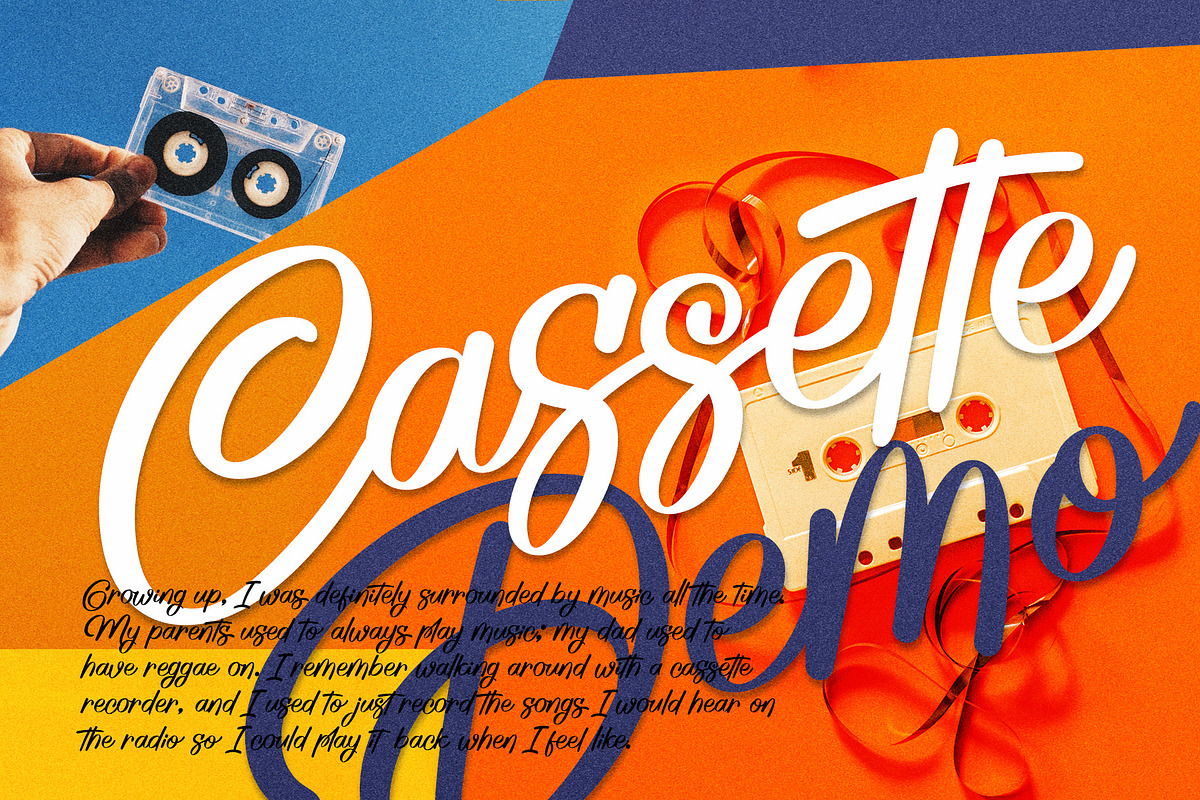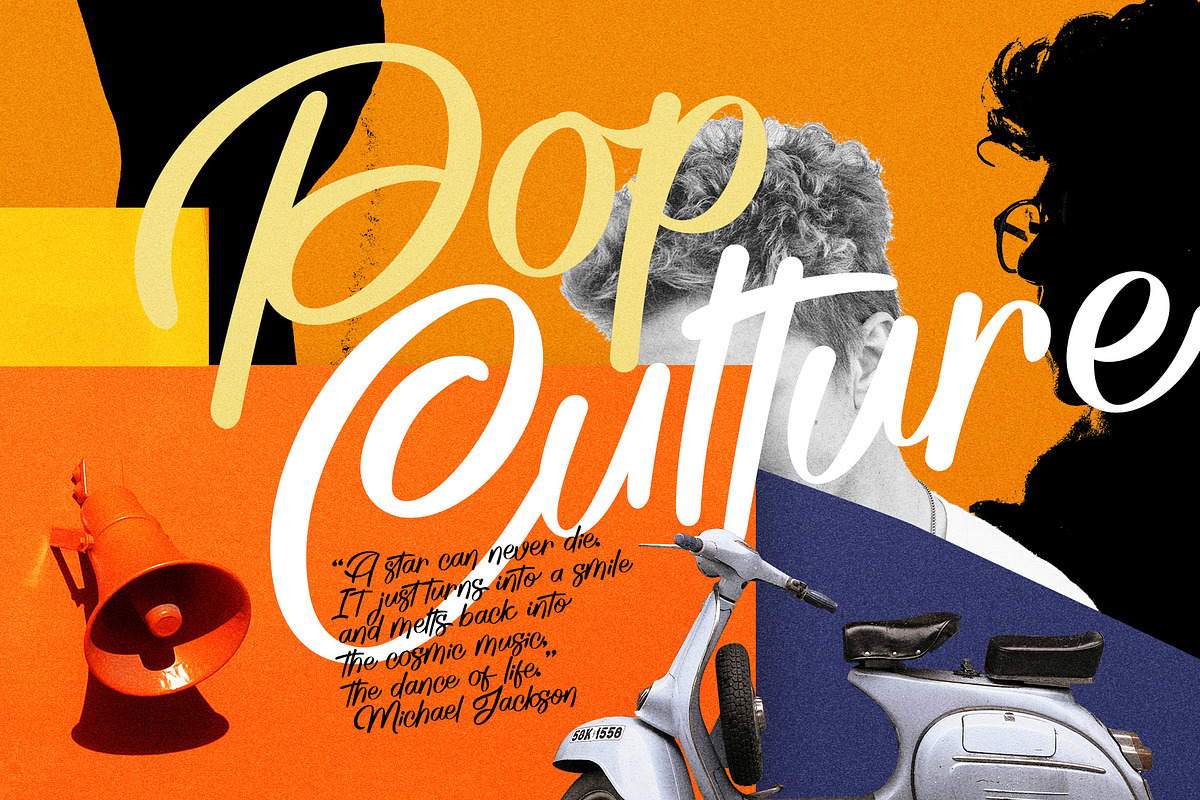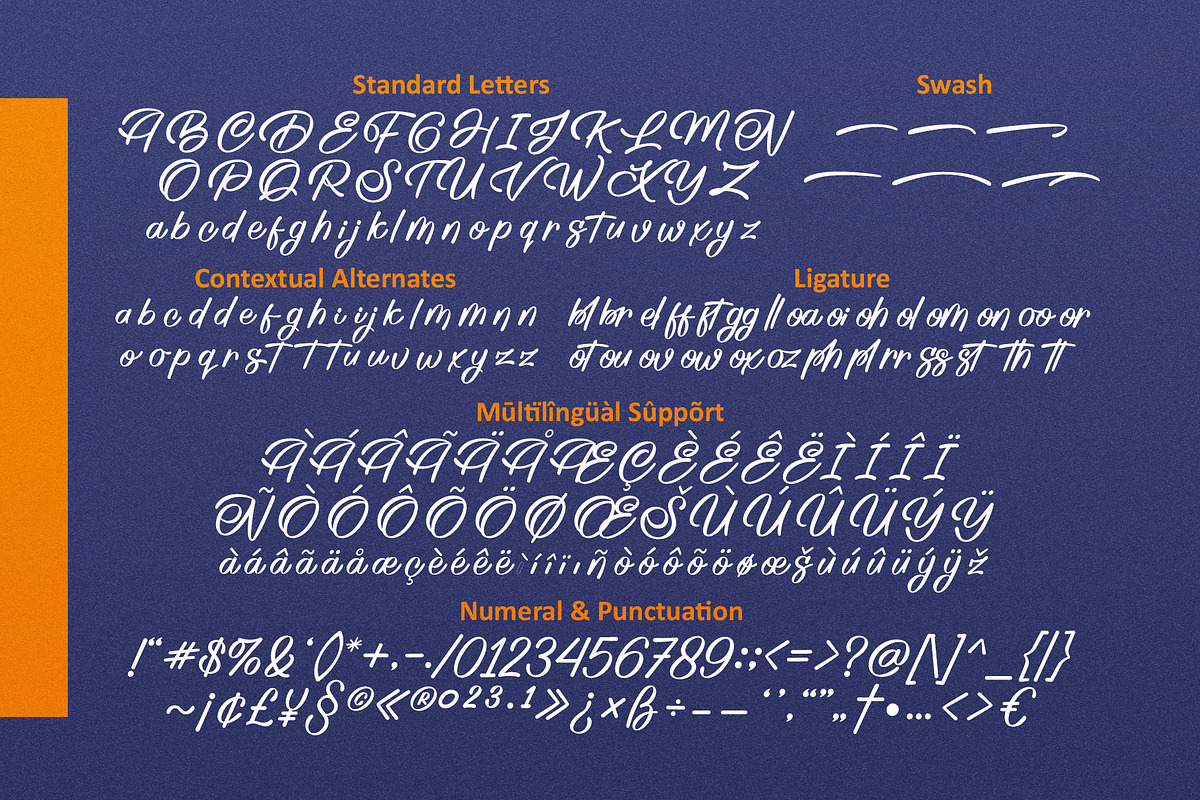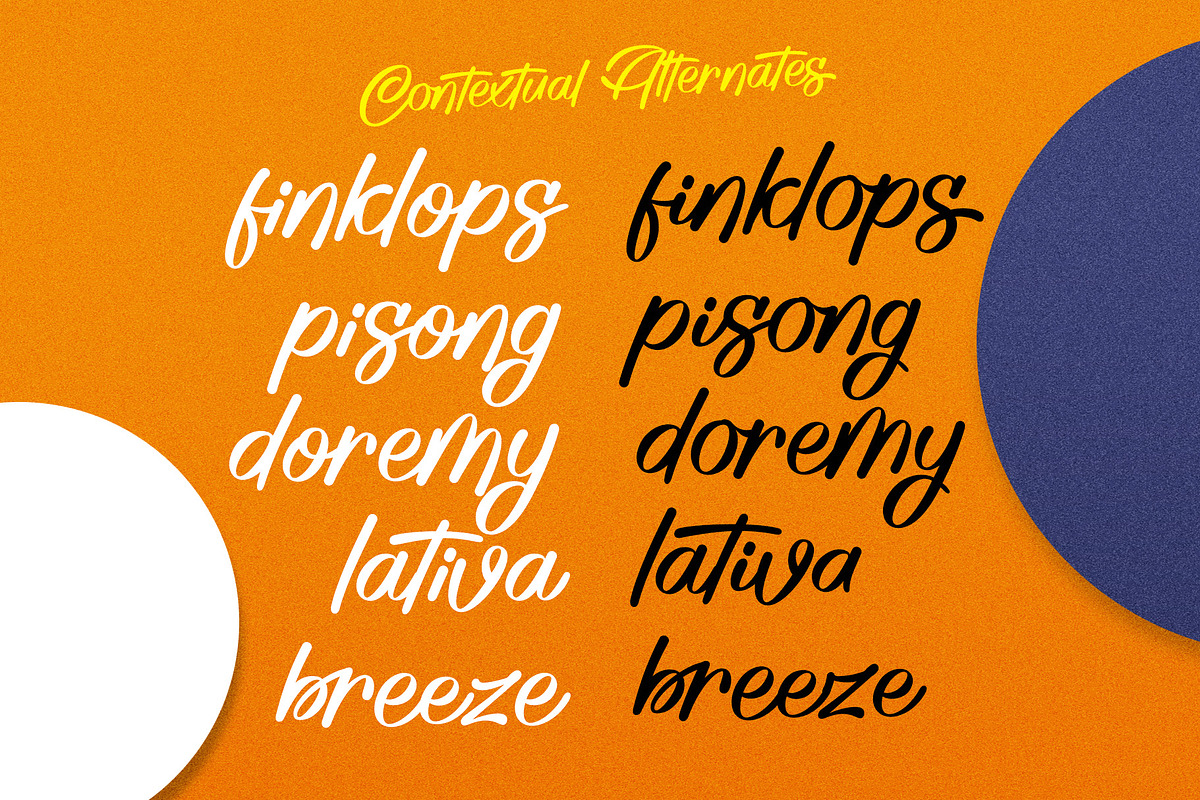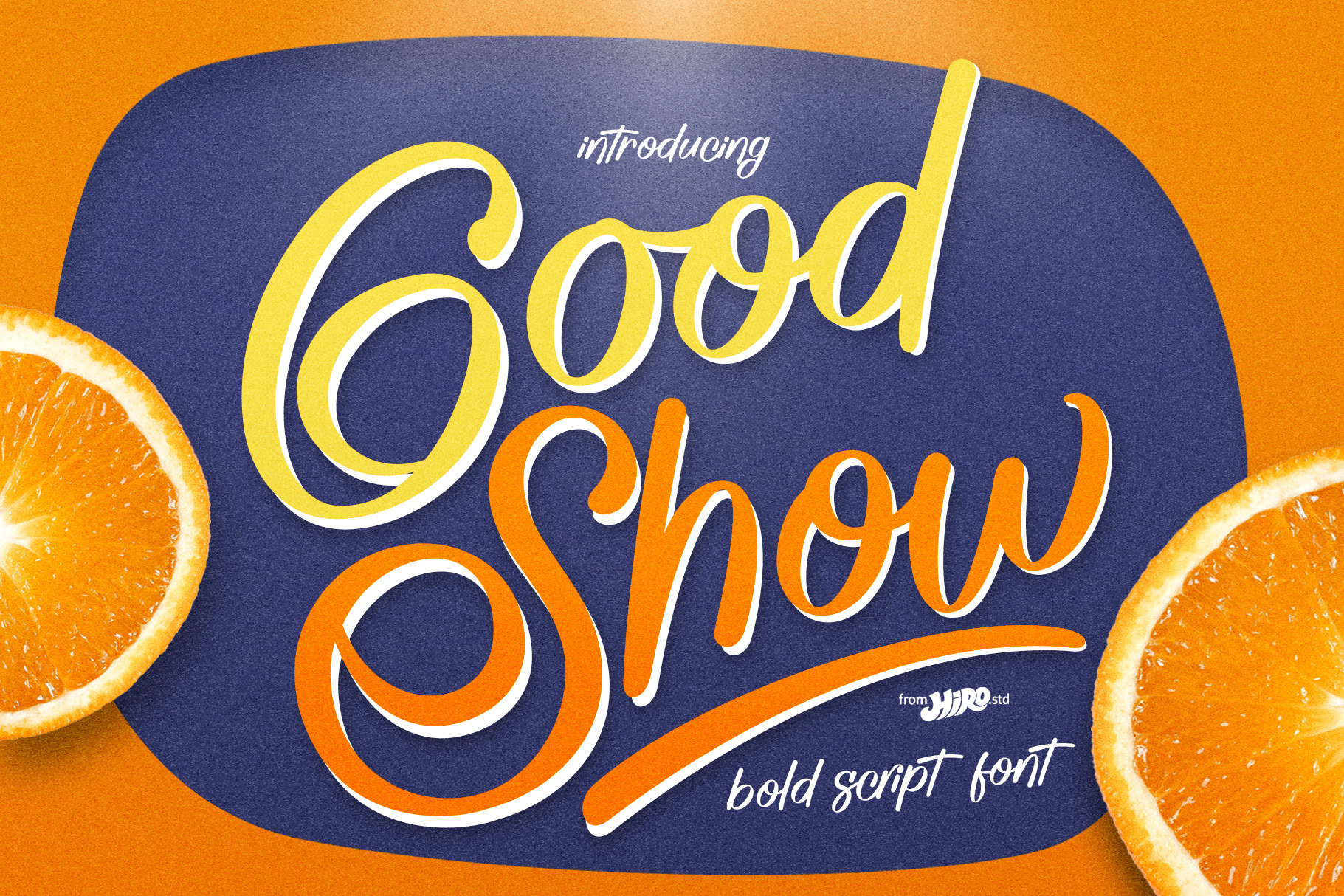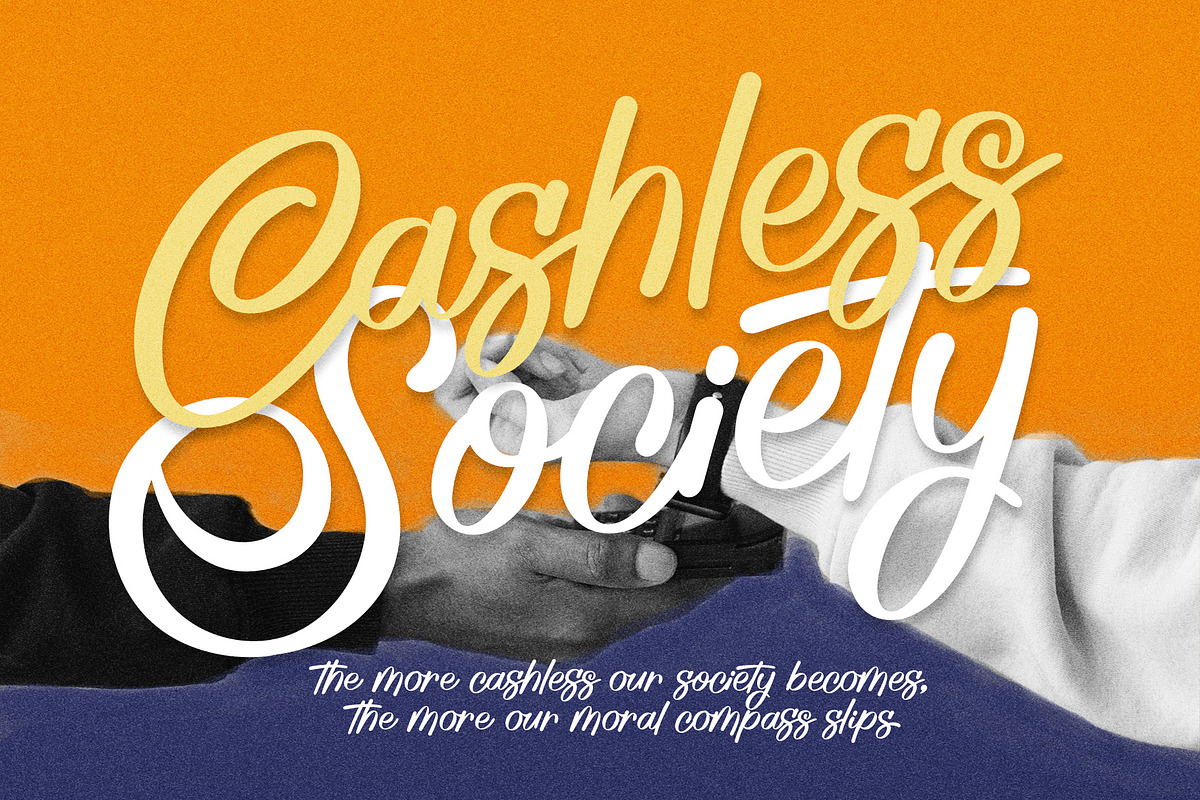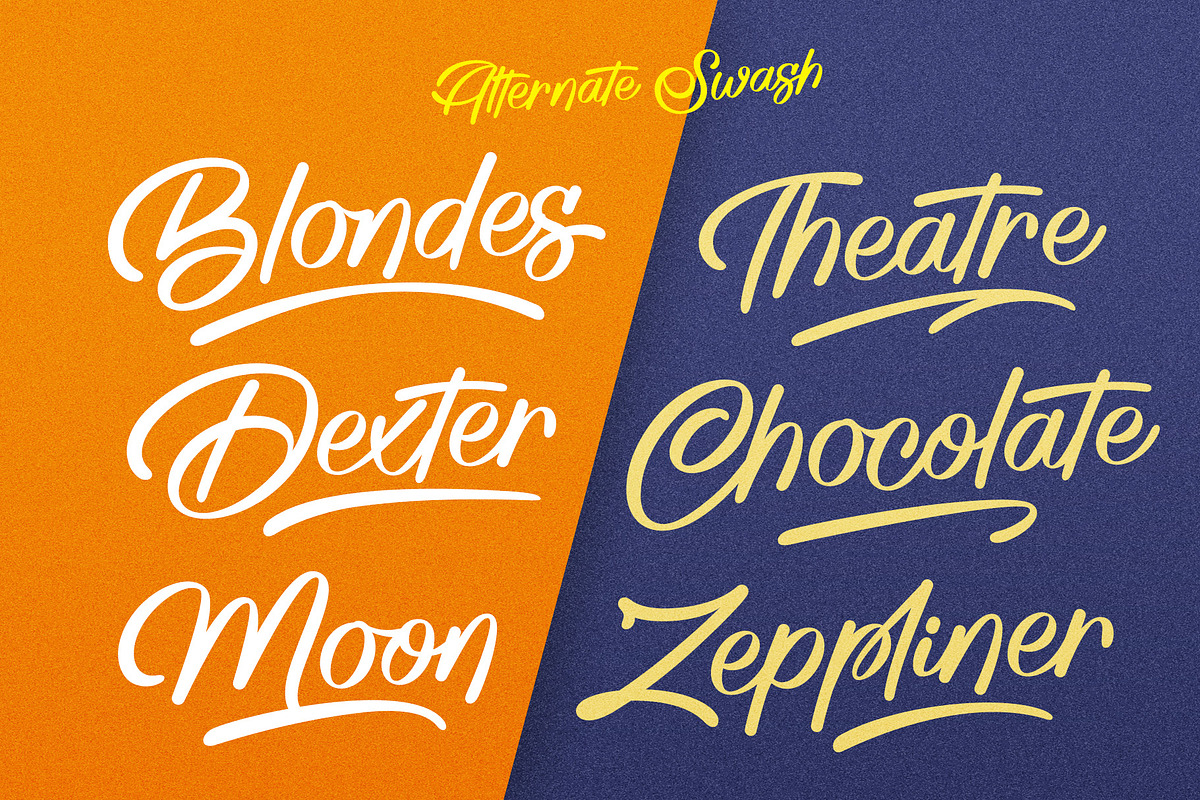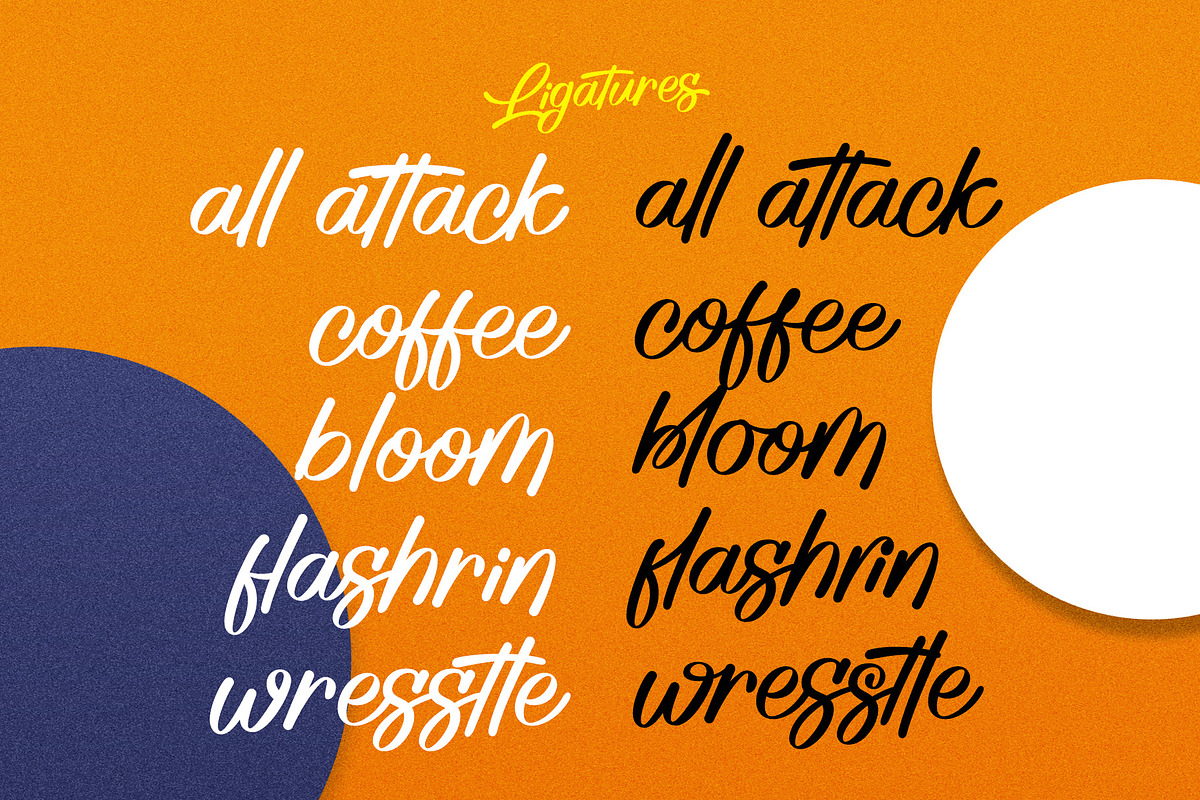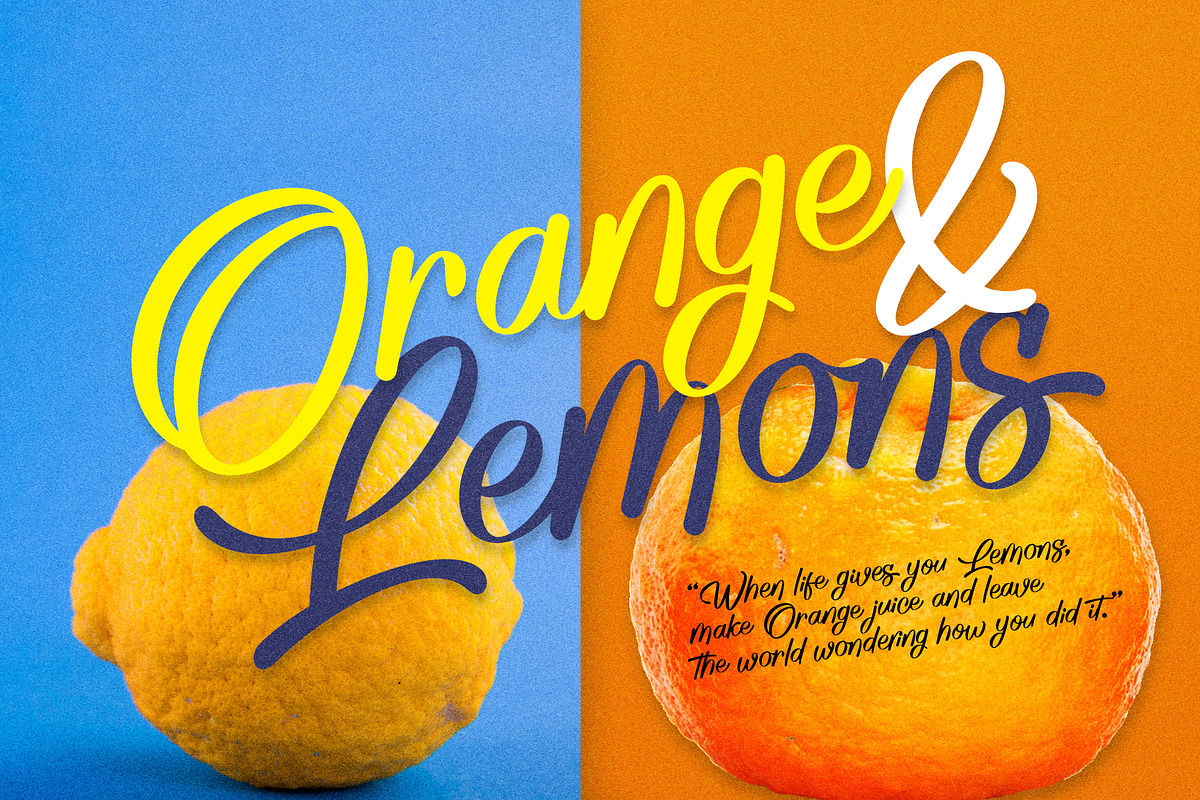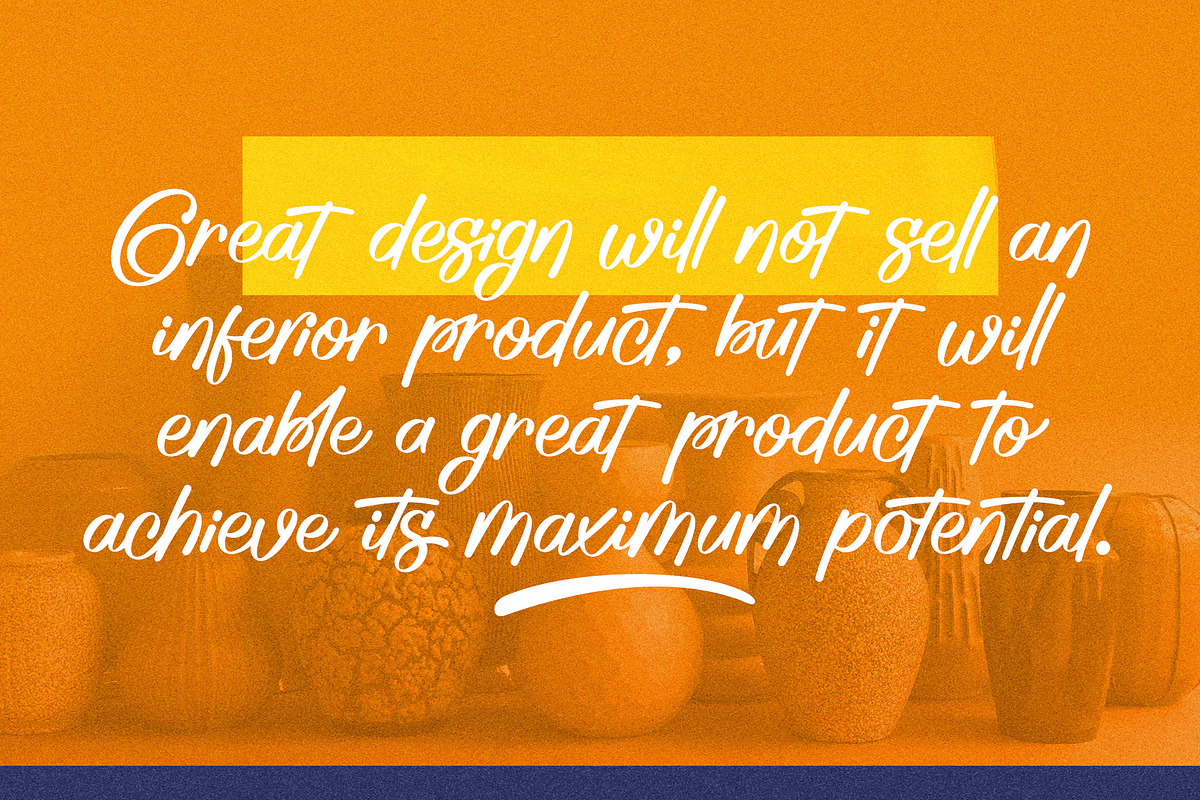
Good Show - Bold Script Font
Good Show is a Bold Script Font
This font describes about stylist, humanist, dynamic, funny, easy going, cool, and easy to use and will bring a good harmony when the letters are connected and paired each other. Good Show inspired from pop culture era.
- Support Opentype Features
- Contextual Alternates
USE Good Show works great in any Branding, Logotype, Apparel, Poster, Product Packaging, Advertisement, Label, Product Design, Magazine and any projects that need Bold Handwritten Font.